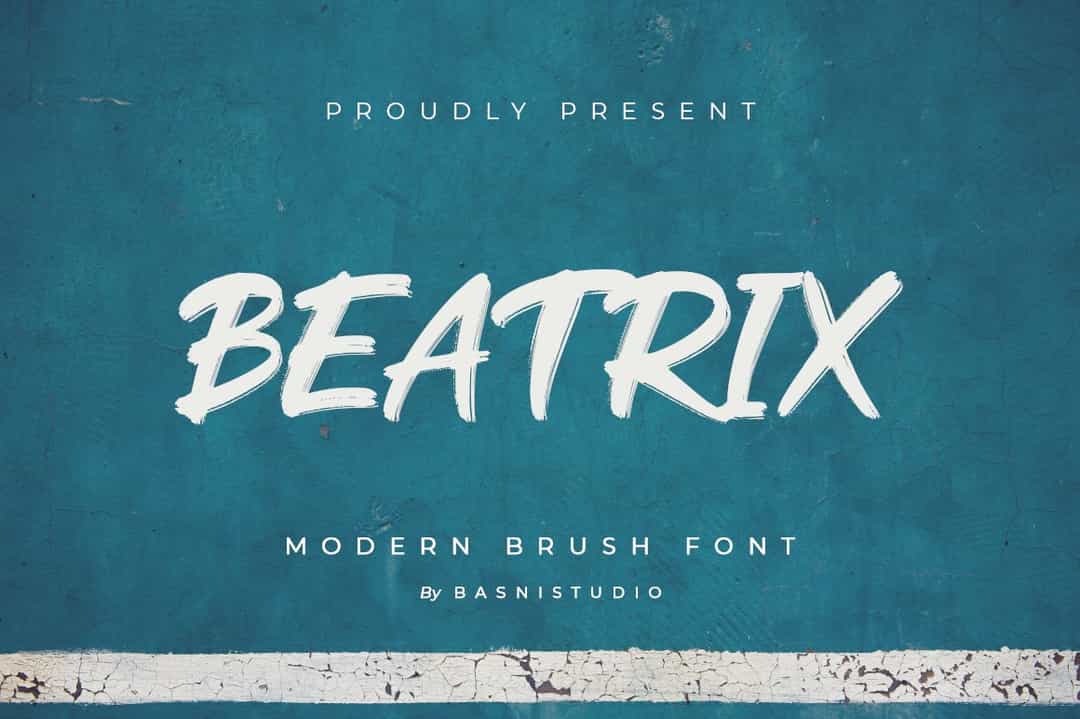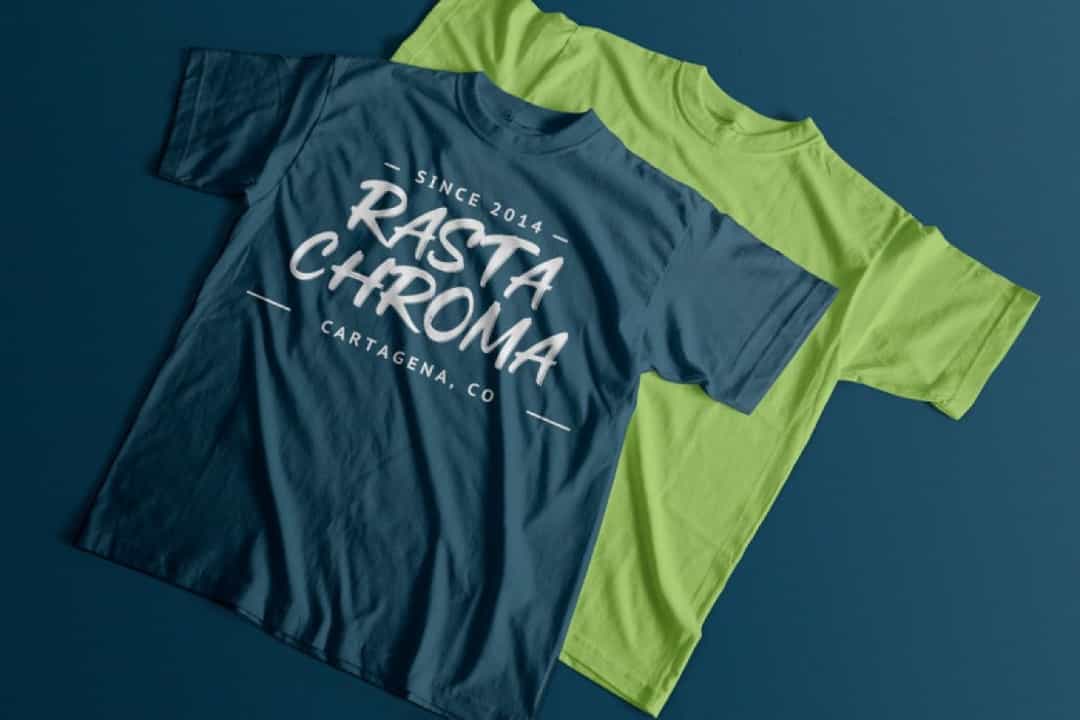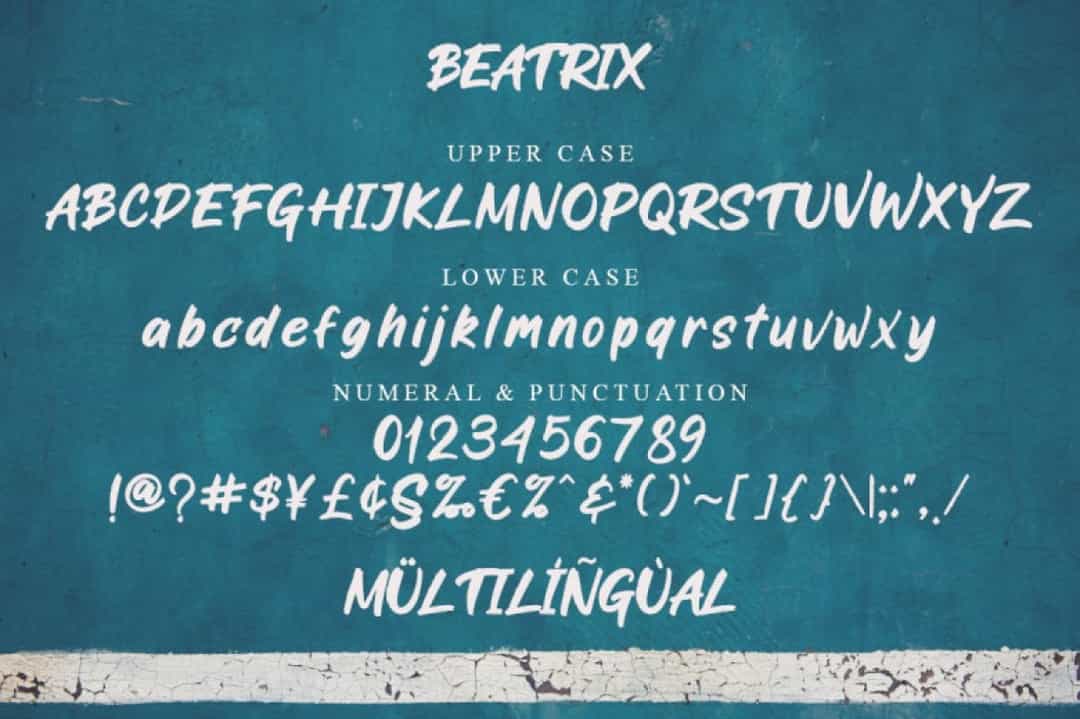
Beatrix Font is designed with Naturaly to be ideal for websites, branding, editorial layouts or multilingual support and binding applications. All its letters – Caps, punctuation marks and binding – can be accessed using software that supports OpenType technology.